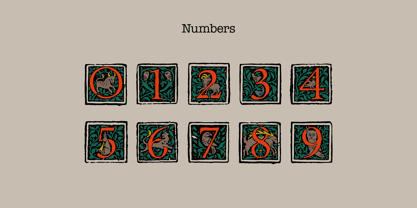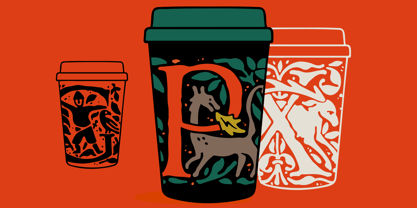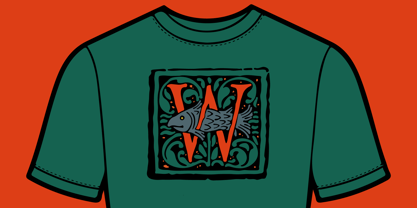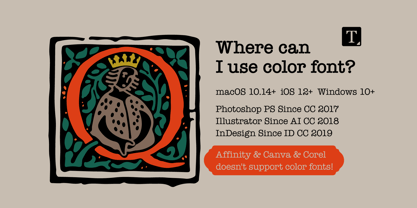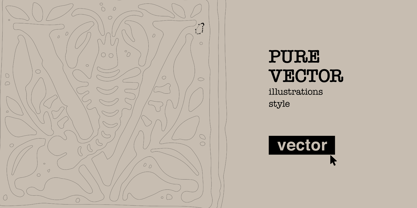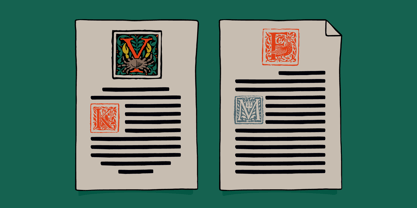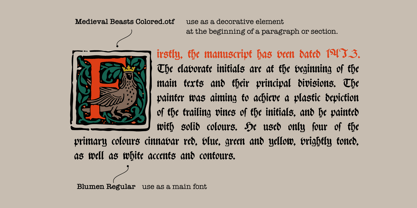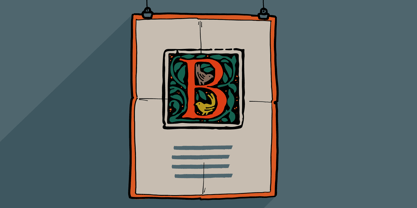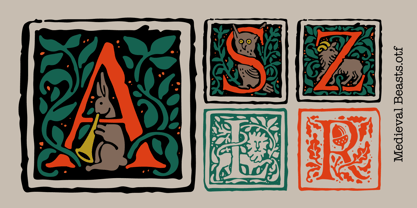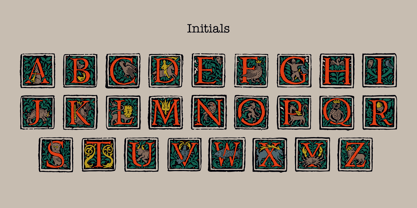
Medieval Beasts
von Kaer
Die Schriftfamilie Medieval Beasts wurde von Roman Korolev entworfen und von Kaer veröffentlicht. Medieval Beasts enthält 3 Stile und Familienpaketoptionen. Mehr über diese Familie
These decorative initials were inspired by Lenten Sermons by Johannes de Aquila, published in 1497 in the ancient Italian city of Brescia by the Dominican Order of Preachers. The richly illustrated medieval manuscript and its ornate illuminated letters became the foundation for this typeface.
The Beasts Drop Caps font family includes Regular, Bold, and Colored styles. It is perfect for recreating the authentic look of medieval manuscripts, illuminated books, fantasy projects, book covers, certificates, and historical designs. Use these decorative initials at the beginning of a paragraph or chapter, combined with your favorite blackletter or Gothic typeface for the main text.